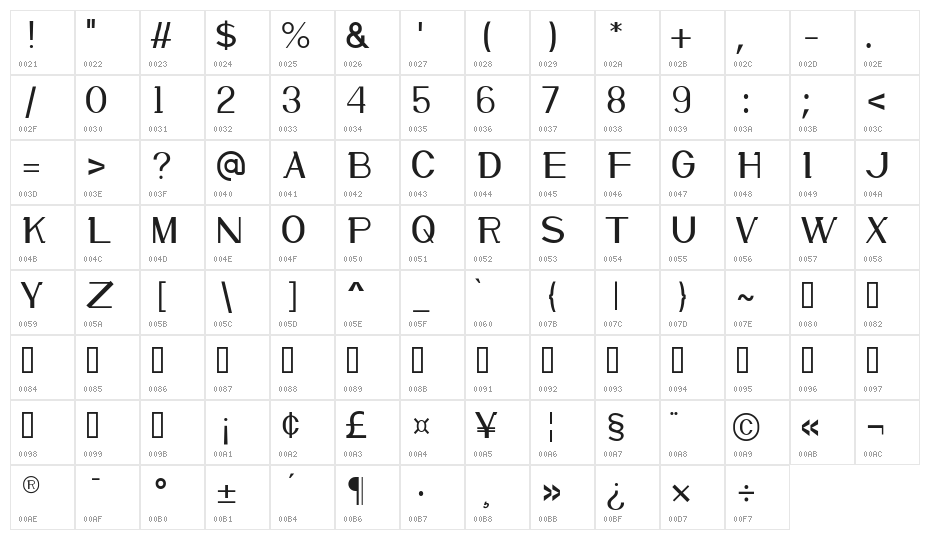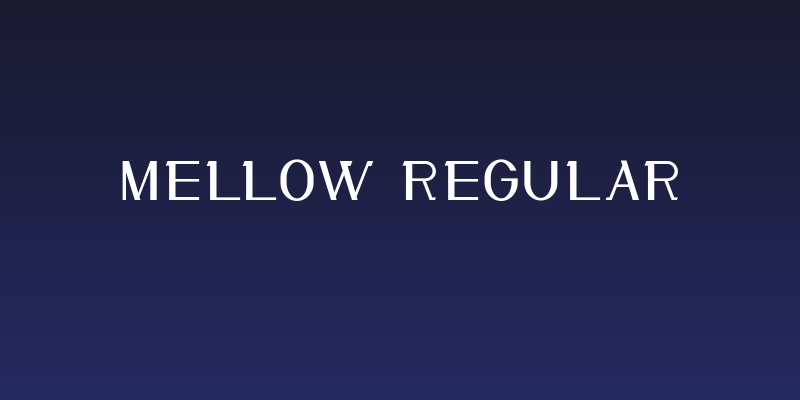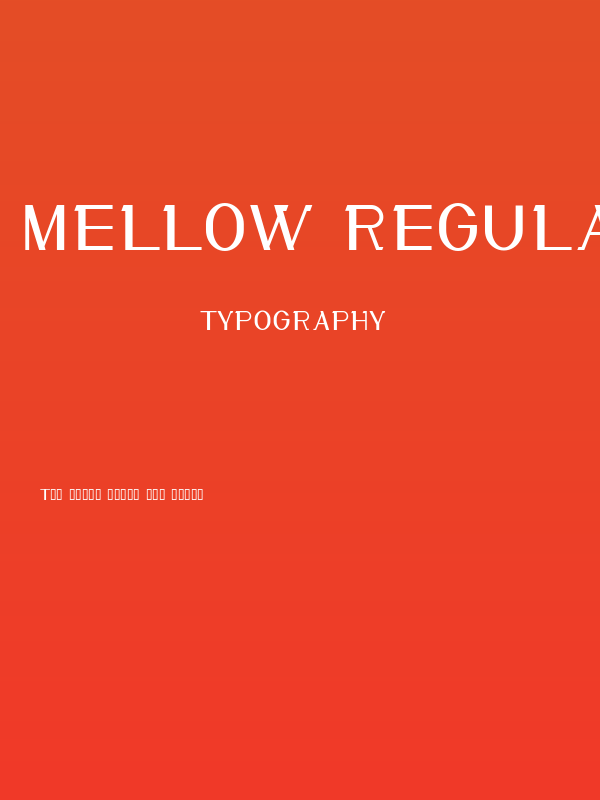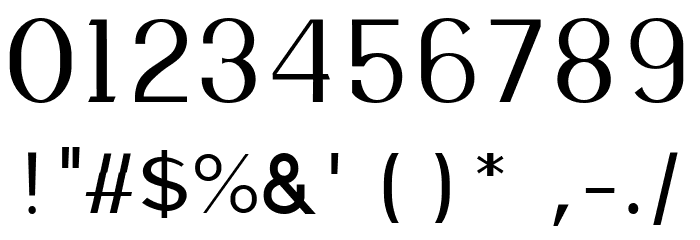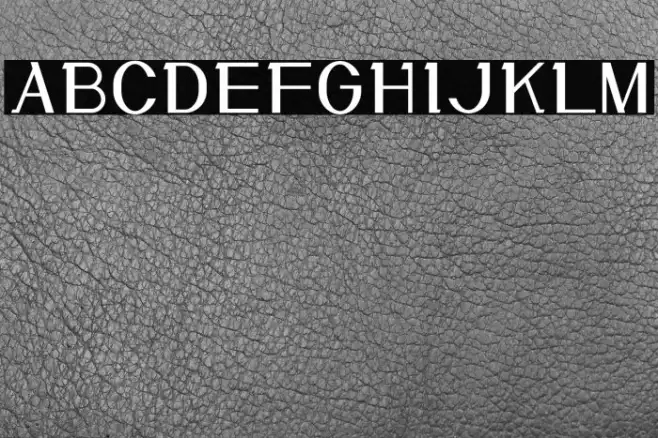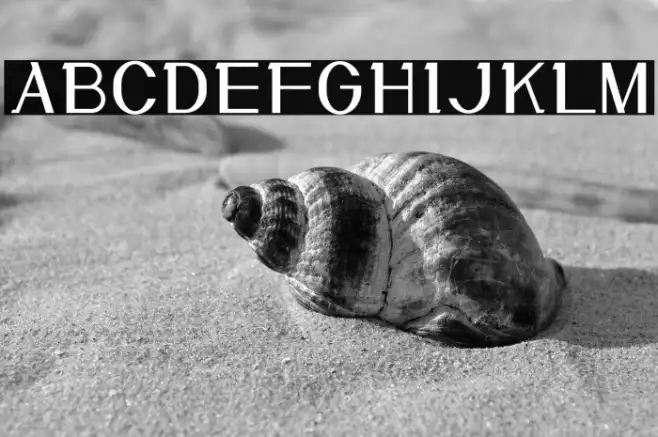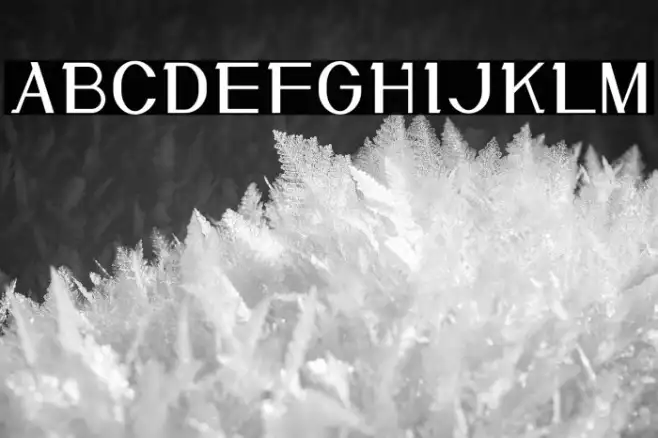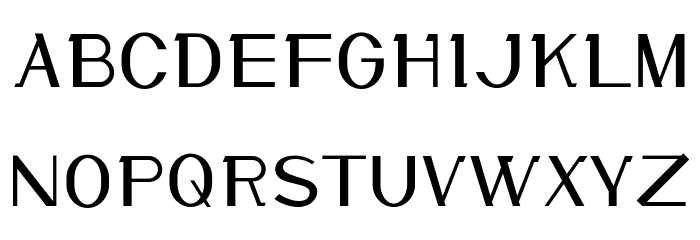
Mellow Regular Font
Mellow Regular Description
This font features a clean and modern design with a focus on readability and simplicity. The characters are well-proportioned with a consistent stroke width, giving it a balanced appearance. The uppercase letters are bold and assertive, while the lowercase letters maintain a harmonious flow. The numerals are clear and distinct, making them easy to read. Special characters are included, providing versatility for various design needs. The overall aesthetic is professional and suitable for a wide range of applications.